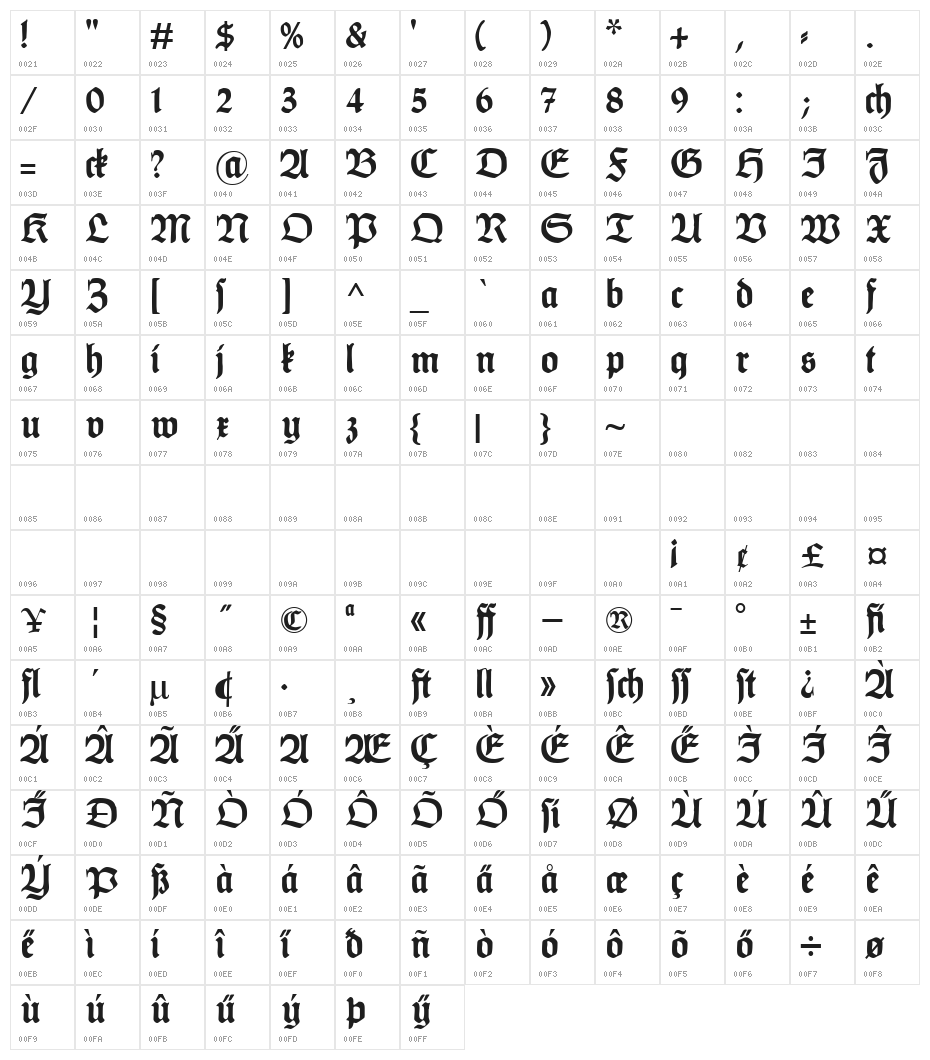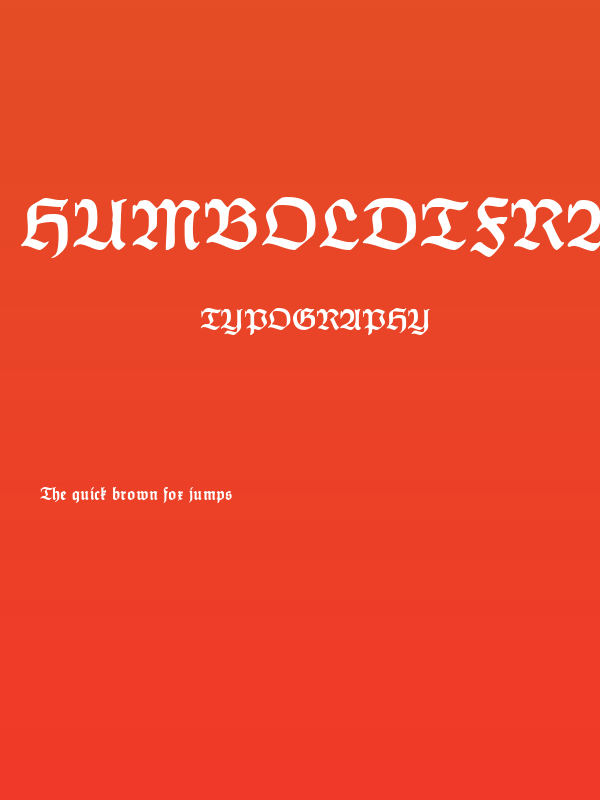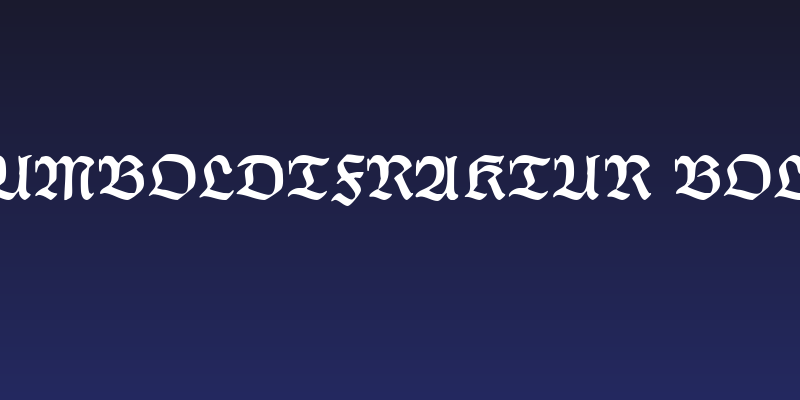
HumboldtFraktur Bold Font
HumboldtFraktur Bold Description
This font features a bold and intricate design, reminiscent of traditional blackletter styles. The characters are highly stylized with sharp angles and dramatic strokes, creating a sense of historical elegance. The uppercase letters are particularly ornate, with elaborate flourishes that enhance their visual impact. The lowercase letters maintain a consistent style, offering a cohesive look across the alphabet. Numbers and special characters are designed to match the overall aesthetic, ensuring uniformity throughout the font. This typeface exudes a sense of authority and tradition, making it ideal for projects that require a touch of classic sophistication.
| Use Case | Logos, Headlines, Certificates |
| Proposed Projects | Ideal for historical documents, certificates, branding for luxury products, or any project needing a classic, authoritative touch. |